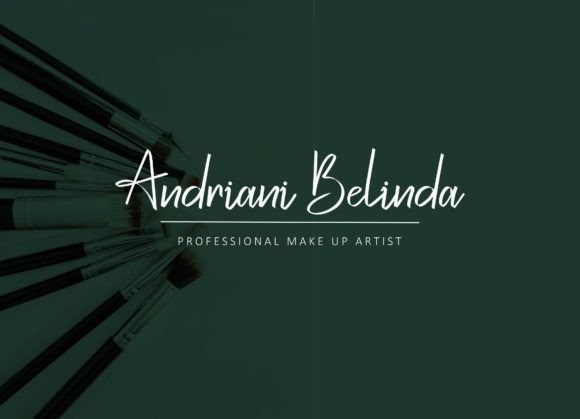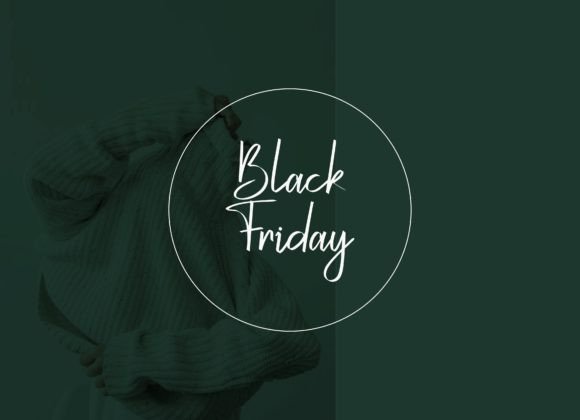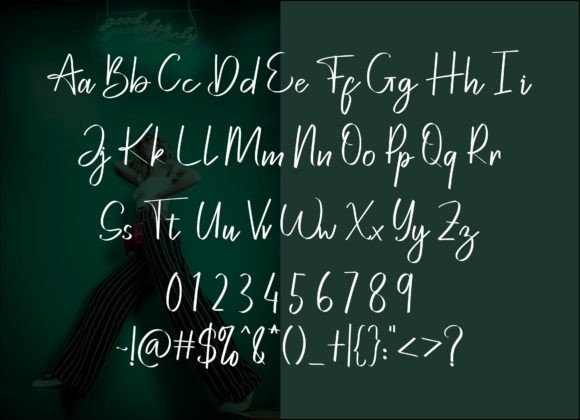
The Quest for the Perfect Font: Discovering Britania
Ah, the eternal struggle of finding the perfect font for your design project. I recall a particularly frustrating moment when I was working on a client’s branding materials. The project required a font that exuded elegance, sophistication, and a touch of modernity. After hours of scouring font libraries and testing various options, I stumbled upon Britania Font. It was love at first sight! ✨
A First Impression: What Makes Britania Special
Britania is a stylish handwritten font that embodies a contemporary atmosphere and impeccable form, drawing inspiration from timeless classic calligraphy. Its balanced and varied design makes it an excellent choice for enhancing the beauty of your projects. Whether you’re a designer, crafter, or creative hobbyist, Britania is sure to impress.
Here’s what I love about Britania:
- ✨ Elegant and sophisticated design
- 💫 Supports OpenType features, glyphs, and stylistic alternates
- 🎨 Versatile and suitable for various design applications
And, of course, no font is perfect. Here are some minor quirks to consider:
- 🤔 Limited availability of condensed or extended versions
- ⚠️ Some users may find the font too ornate for certain projects
The Story Behind Britania: Designer Inspiration
Britania was designed with the goal of creating a font that combines classic calligraphy with modern sensibilities. The designer drew inspiration from timeless typography, infusing it with a fresh, contemporary atmosphere. The result is a font that feels both elegant and approachable.
| What type of projects is Britania best suited for? | Britania is versatile and suitable for various design applications, including branding, packaging, and digital media. |
| Does Britania support OpenType features? | Yes, Britania supports OpenType features, including ligatures, stylistic alternates, and glyphs. |